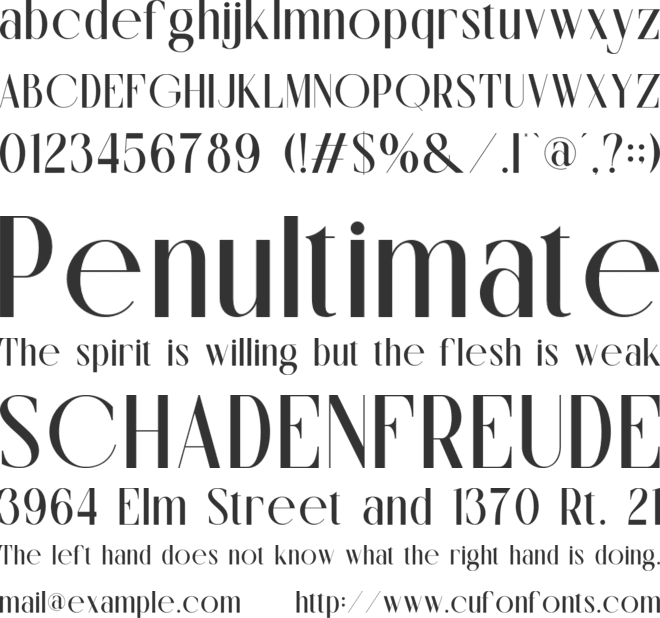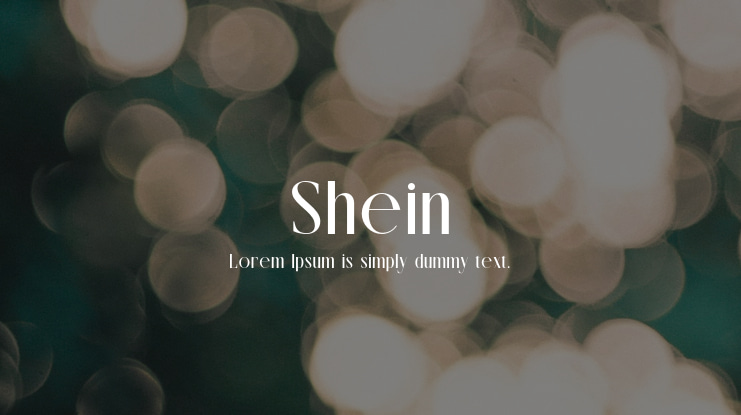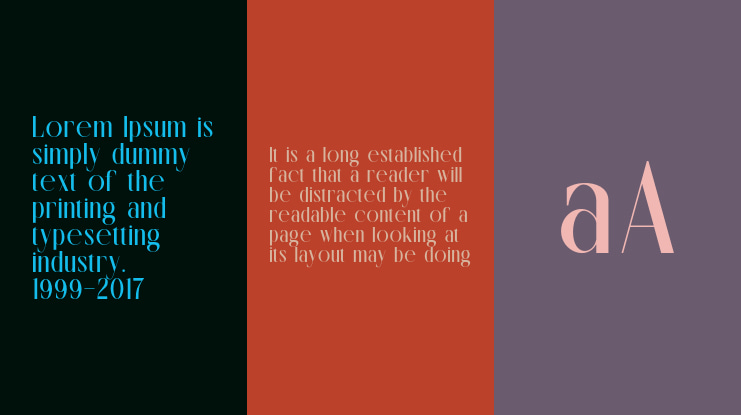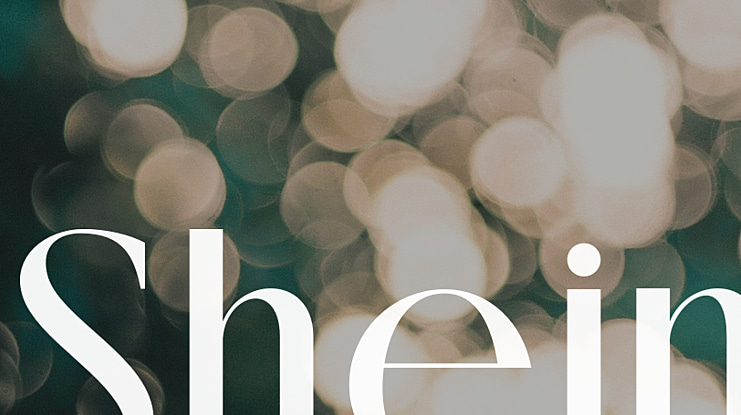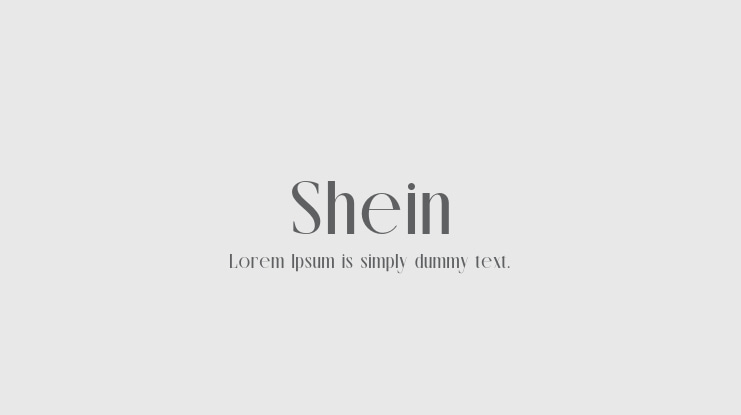
Shein Font
Shein is a carefully crafted, balanced, refined, elegant and stylish sans serif font. It grabs attention and beautifies any design. It is perfect to be combined with invitation card designs, company logos, movie titles, movie names, business cards, book titles, brand names and various other designs. Shein is a refined sans serif font that exudes sophistication and cohesion. Its stylish alterations and ligatures make this font a perfect partner for any project.